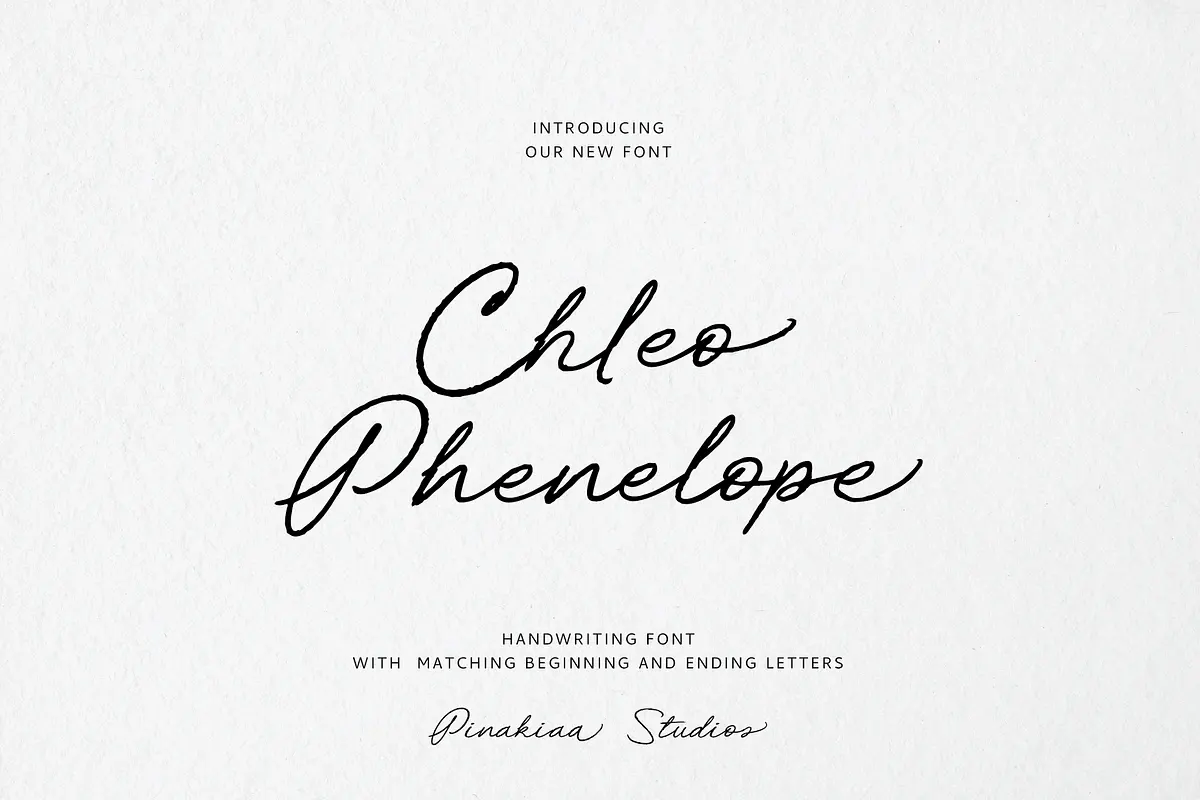
Chleo Phenelope Handwriting Free Download
Chleo Phenelope Handwriting Font Free Download is a beautifully crafted handwritten typeface that exudes elegance and charm. With its flowing strokes and natural curves, Chleo Phenelope is perfect for creating personal branding, wedding invitations, greeting cards, social media graphics, and any design that requires a sophisticated and artistic touch.
Chleo Phenelope Handwriting Font Free Download adds a warm, authentic feel to your typography, making it ideal for projects that need a personal, handmade aesthetic. Whether you're designing for a luxury brand, a heartfelt invitation, or creative social media posts, this font brings beauty and originality to your work. Download it today and bring a touch of handwritten elegance to your next project with Chleo Phenelope!